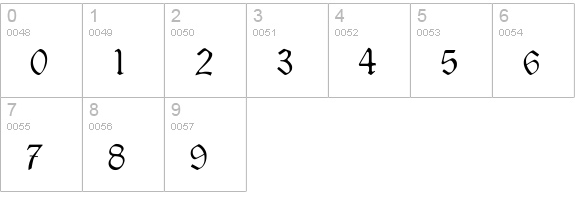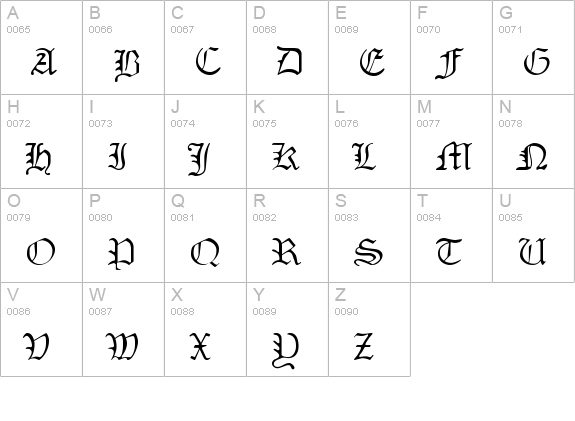
MonAmourFrakturRegular Font Details
MonAmourFrakturRegular font is an elegant and sophisticated typeface that exudes a sense of romance and old-world charm. Its delicate curves and intricate details make it perfect for adding a touch of vintage flair to your designs. The ornate flourishes and decorative elements of this font give it a timeless and classic appeal that is sure to captivate your audience. What sets MonAmourFrakturRegular font apart is its versatility – it can be used for a wide range of design projects, from wedding invitations and greeting cards to branding and packaging. Whether you're looking to create a luxurious and refined look or evoke a sense of nostalgia and tradition, this font has you covered. Best of all, MonAmourFrakturRegular font is completely free to download at FontsMarket.com, making it accessible to designers of all skill levels. Don't miss out on the opportunity to add this stunning font to your collection and elevate your designs to the next level.